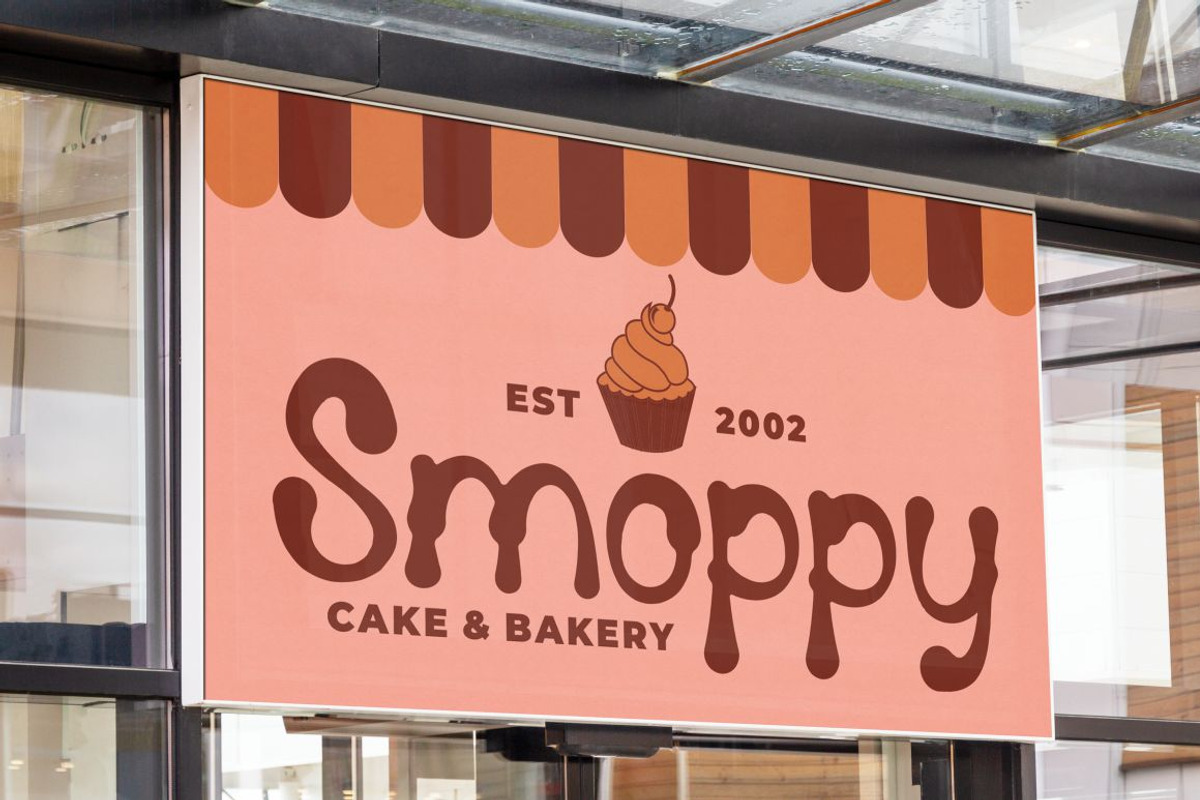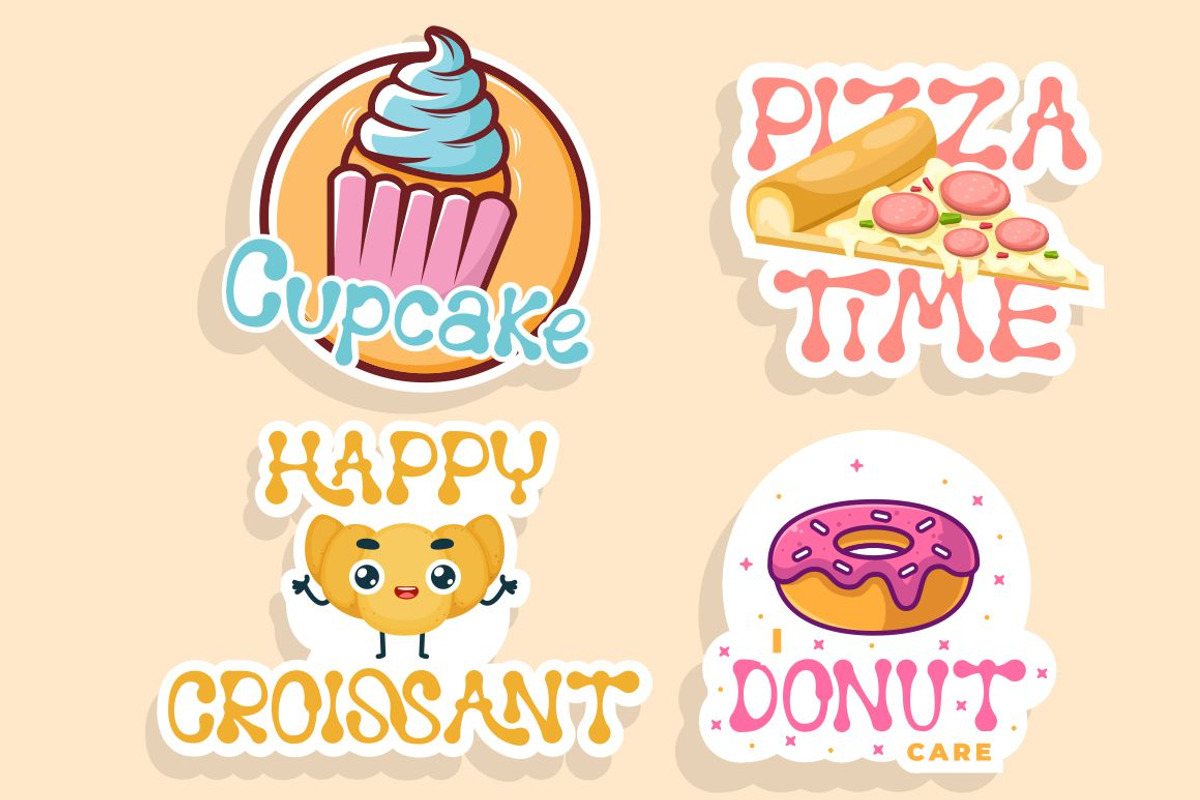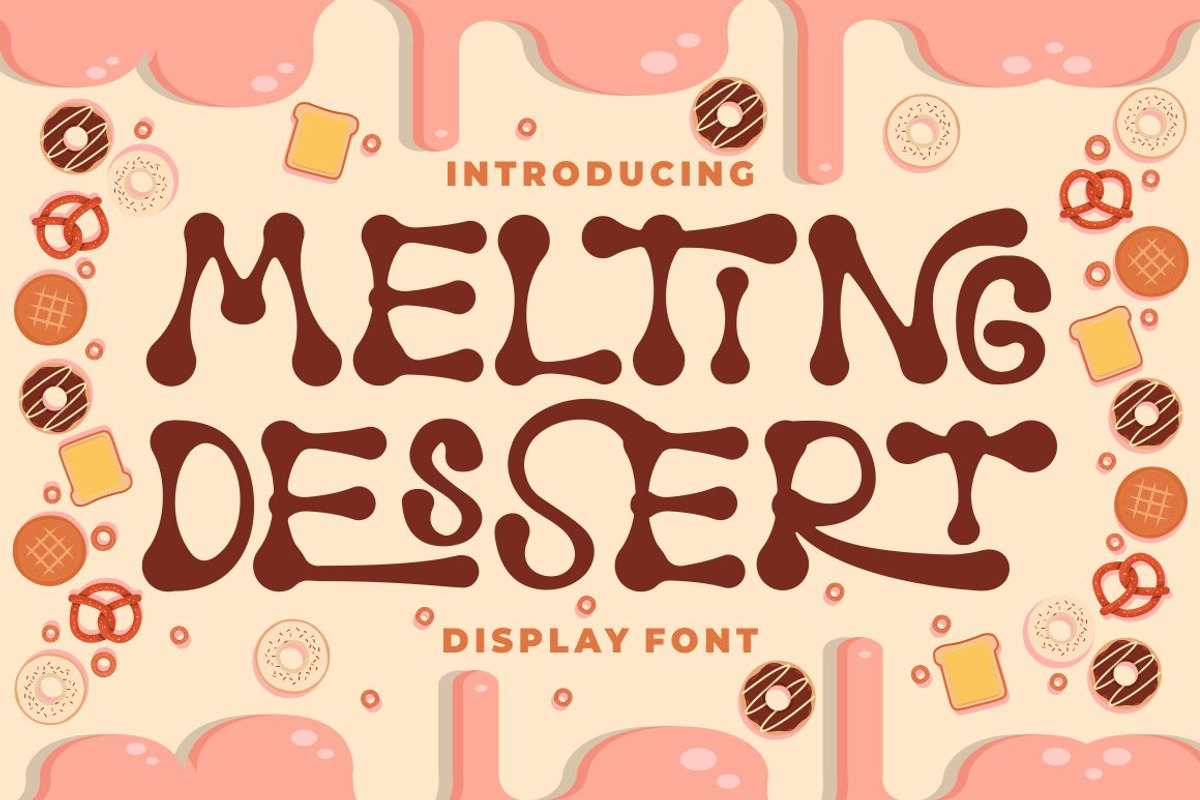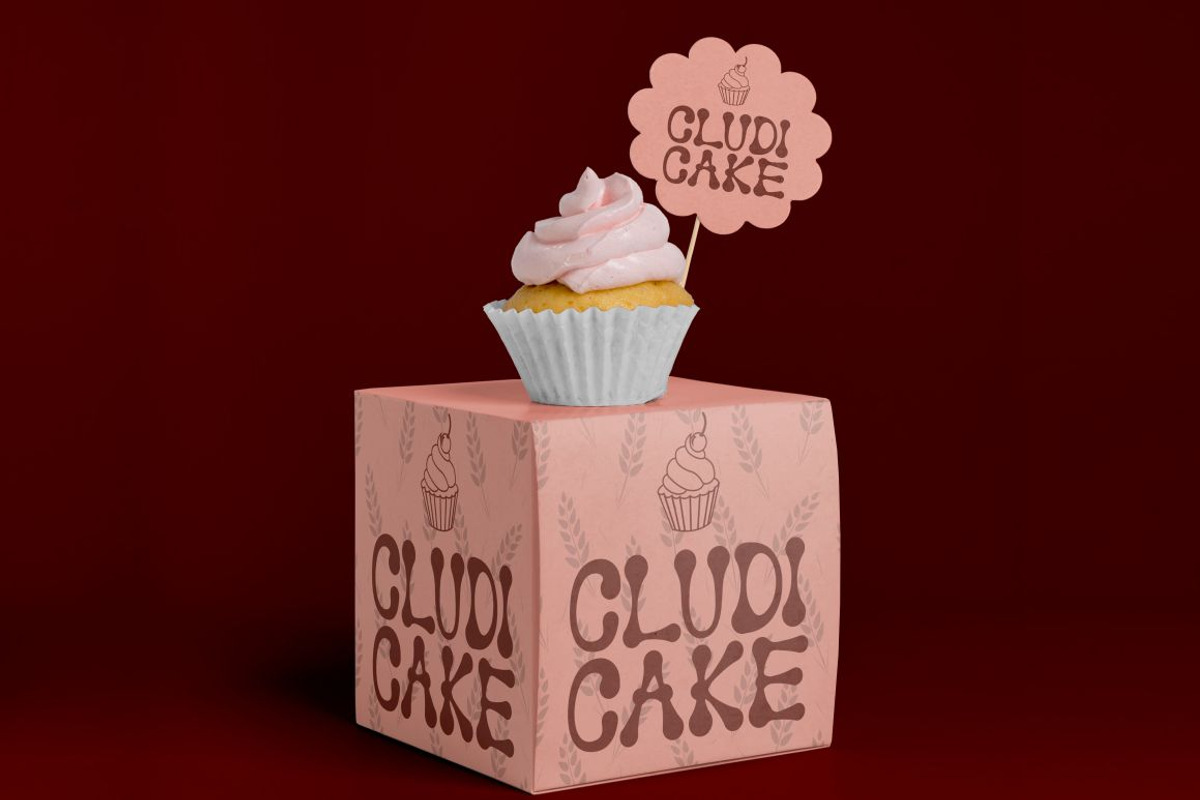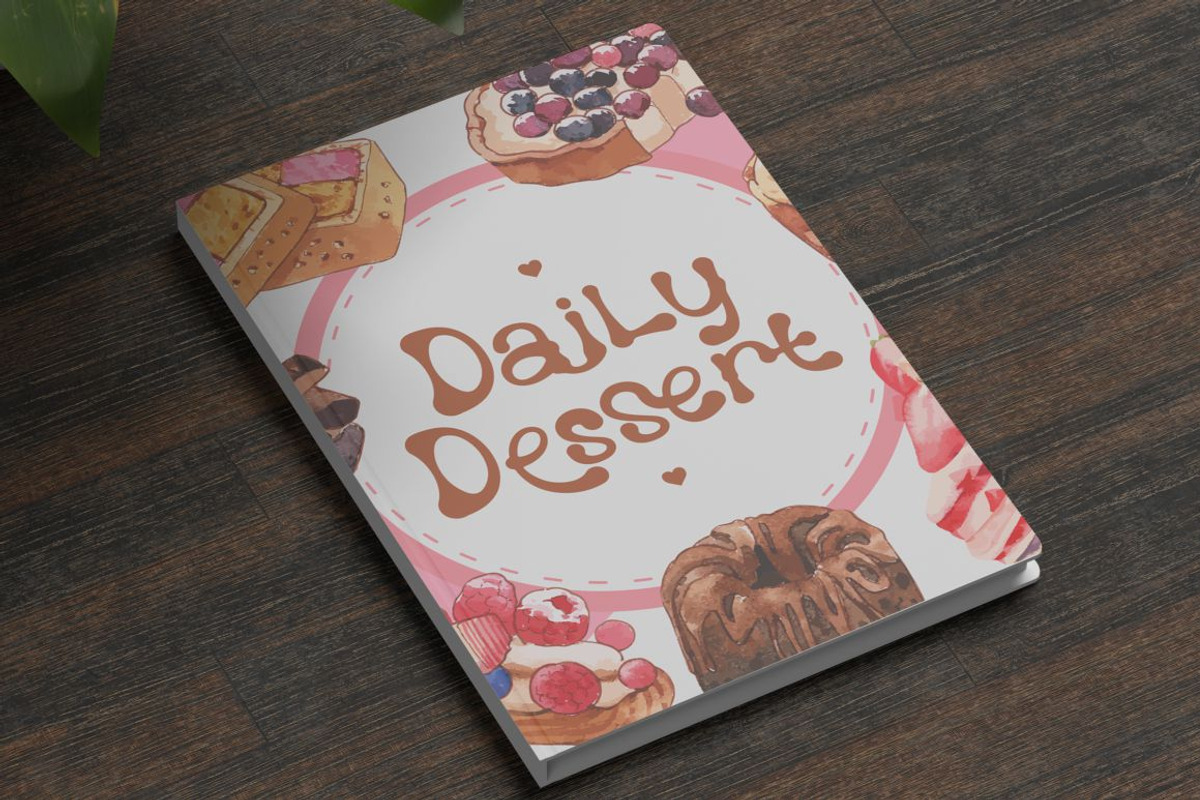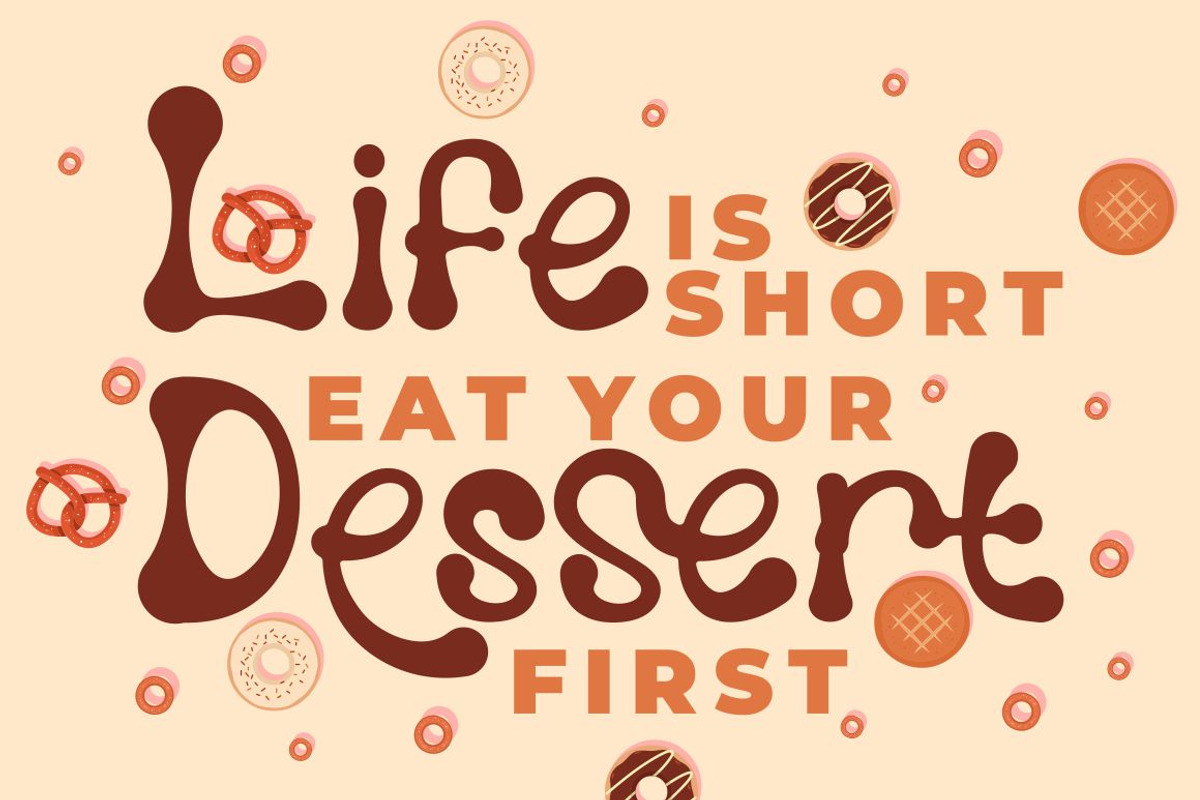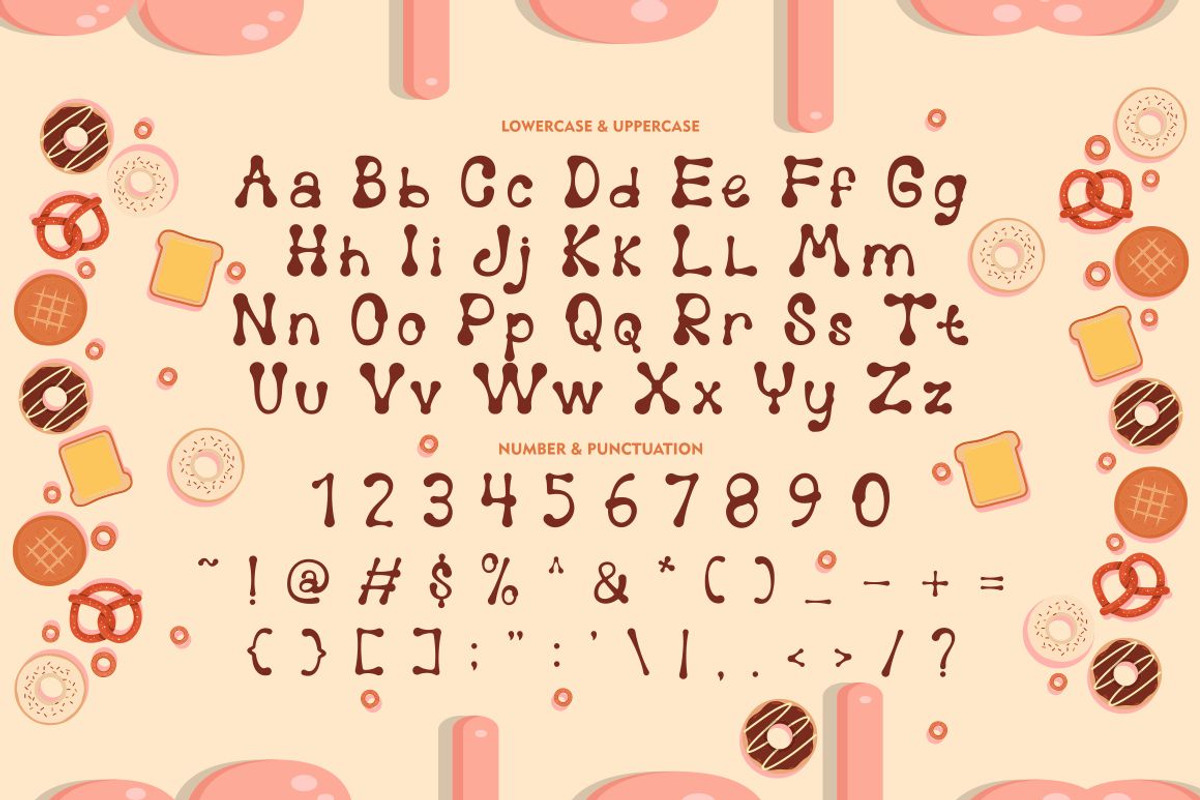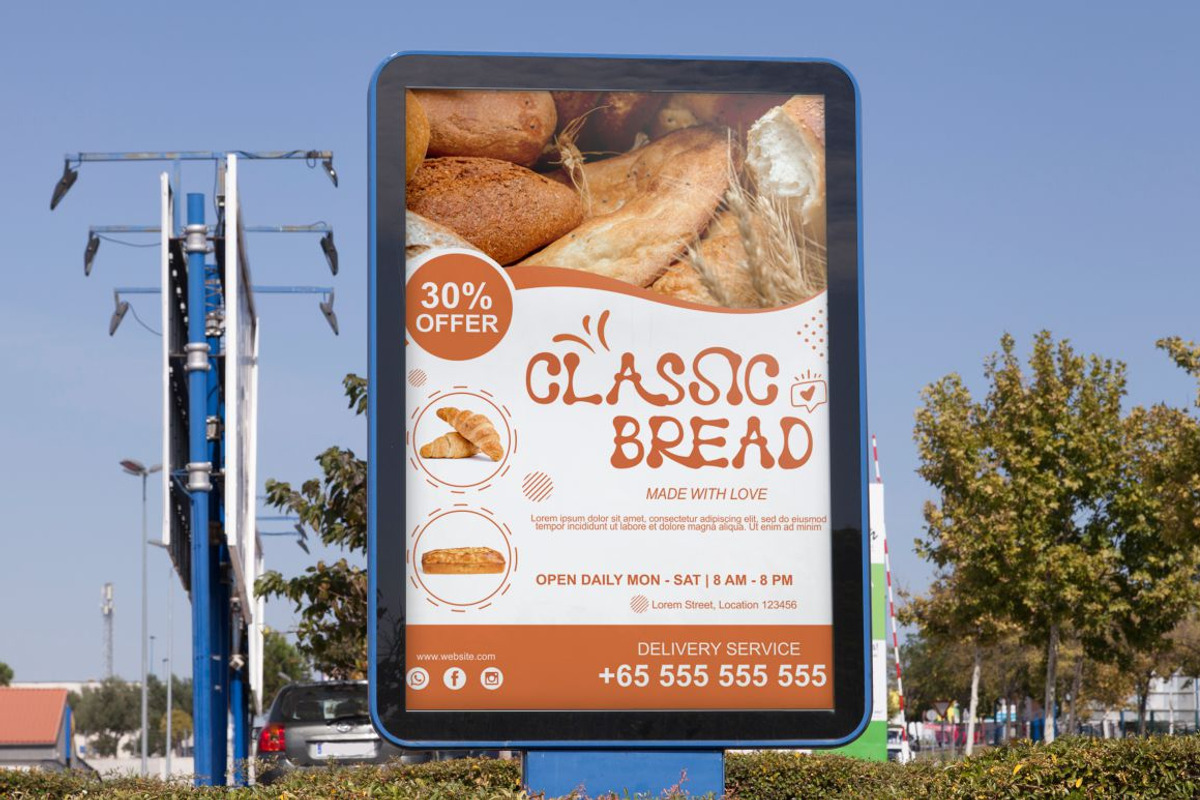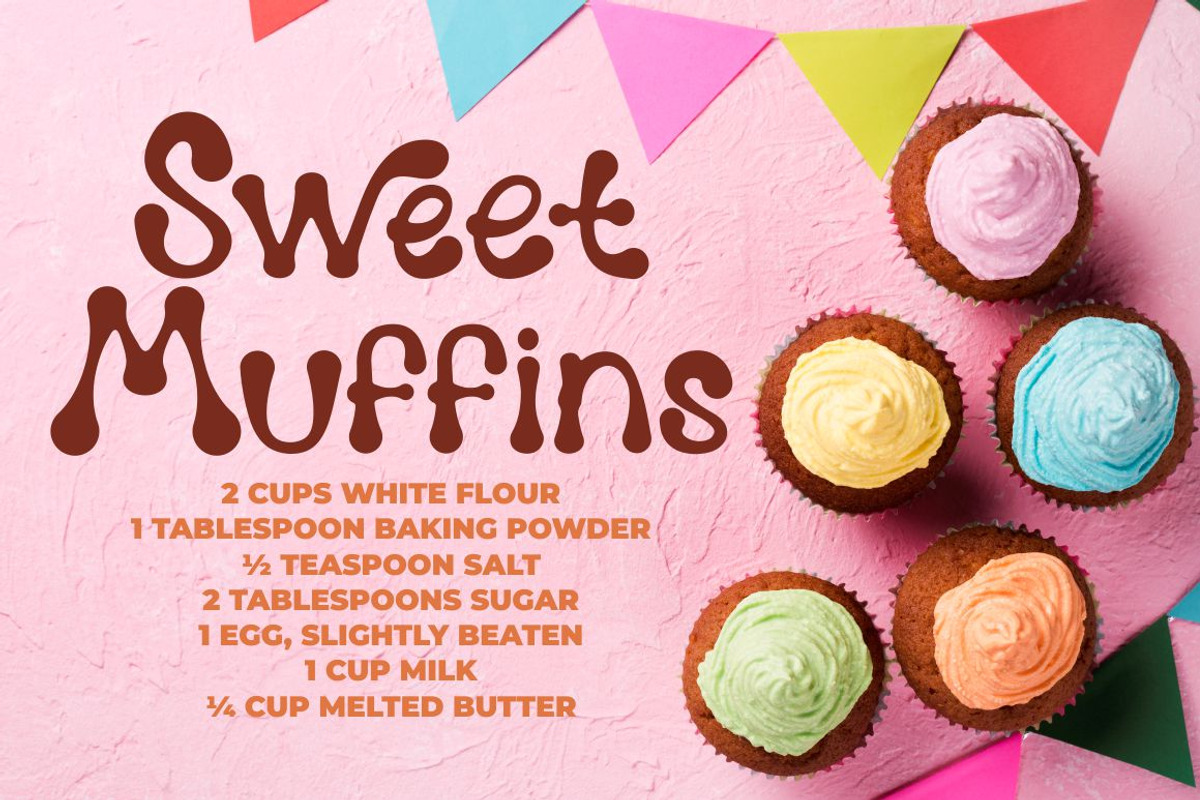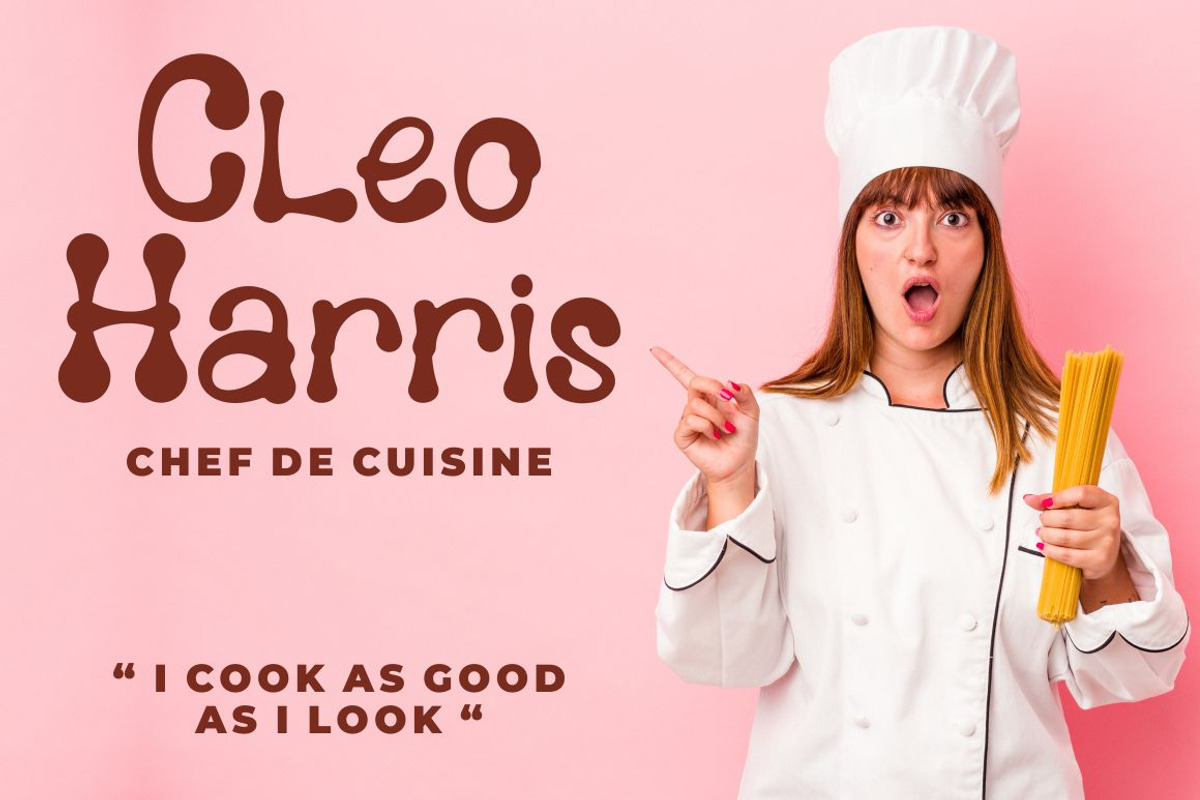
Melting Dessert - Display Font
Melting Dessert - Display Font. Melting Dessert is a playful and quirky display font. Melting Dessert will easily add a fun touch to any craft
Melting Dessert perfect for any fun quirky design work! Melting Dessert can be used for anything such as story books, illustrations, comic books, t-shirts, posters, greeting cards, logos, branding, stickers, svg, crafting and all for display purposes.